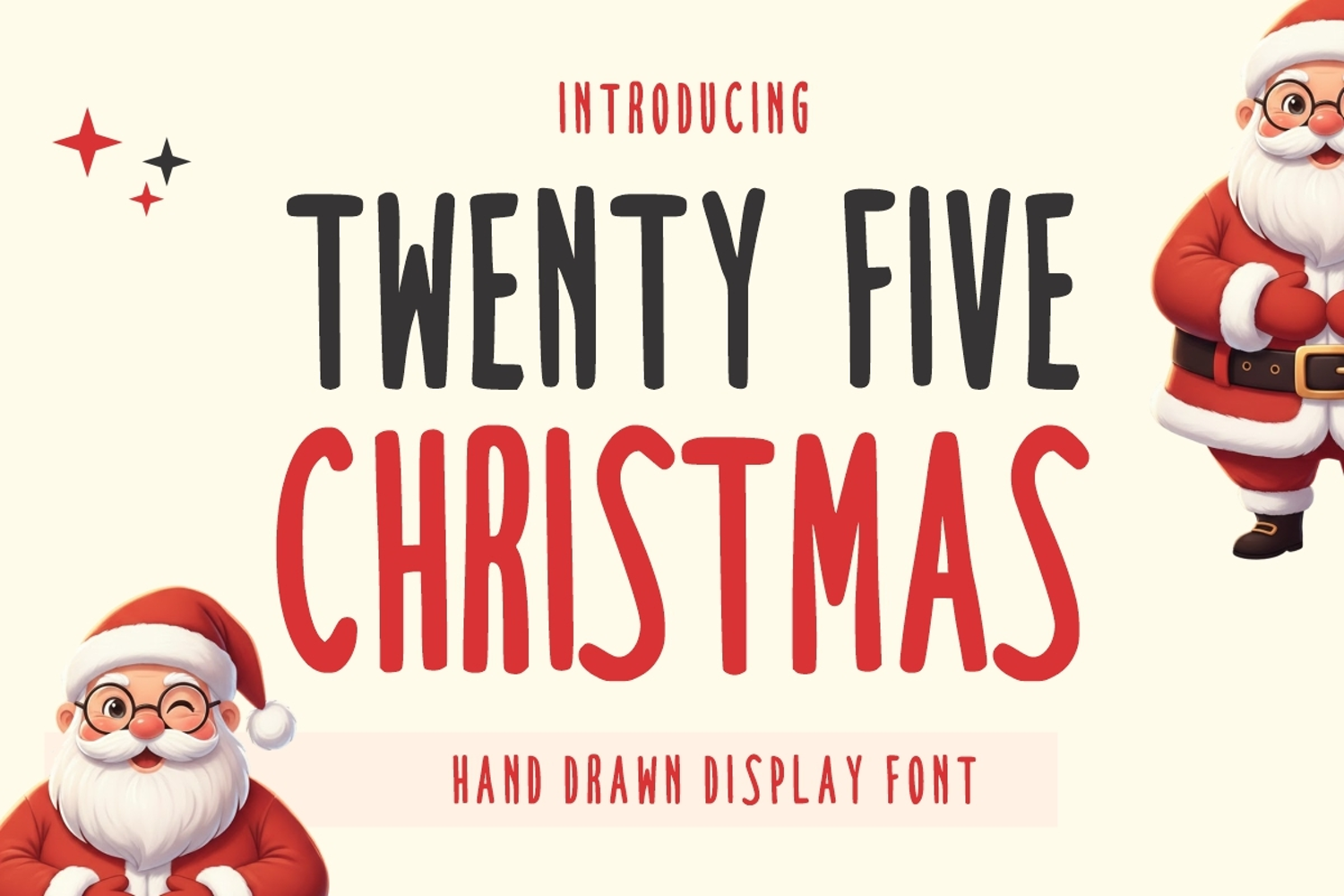
Twenty Five Christmas
Twenty Five Christmas is a fun and festive display font. It is suitable for any winter and holiday branding, product packaging, invitation, quote, t-shirt, label, poster, logo that you wish to develop.
Twenty Five Christmas